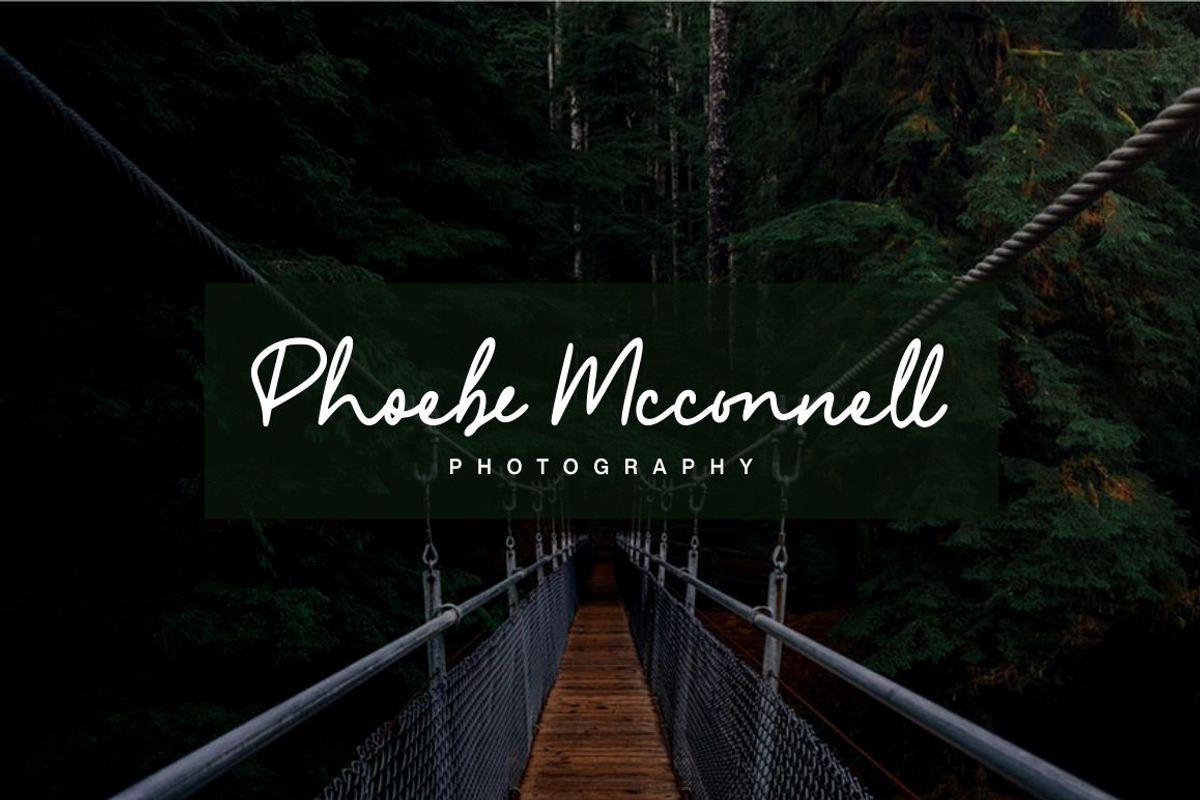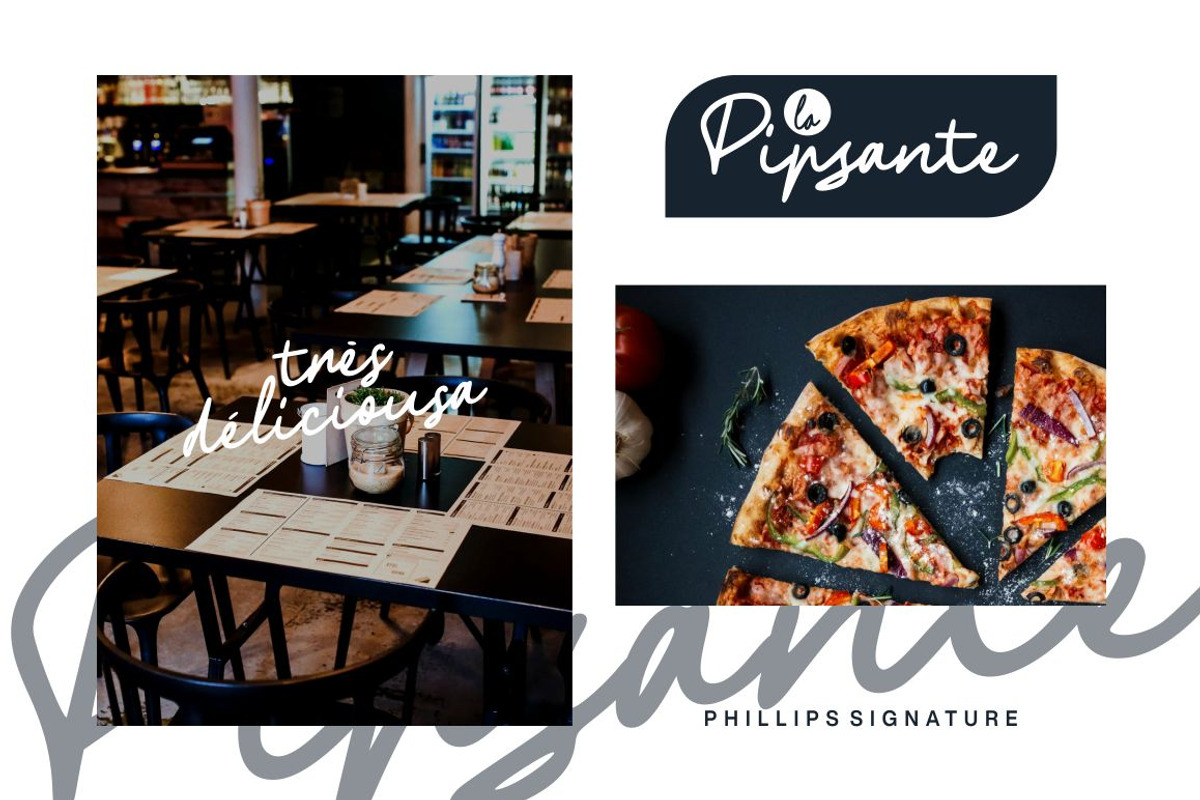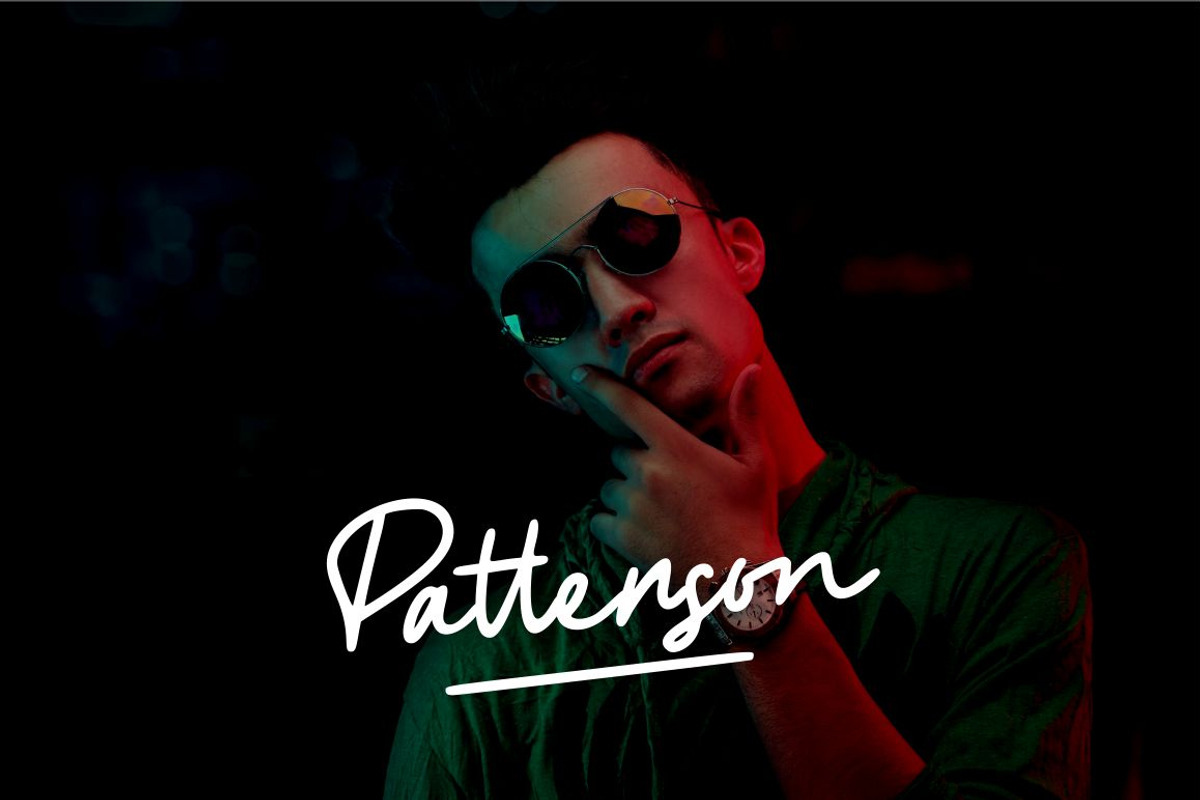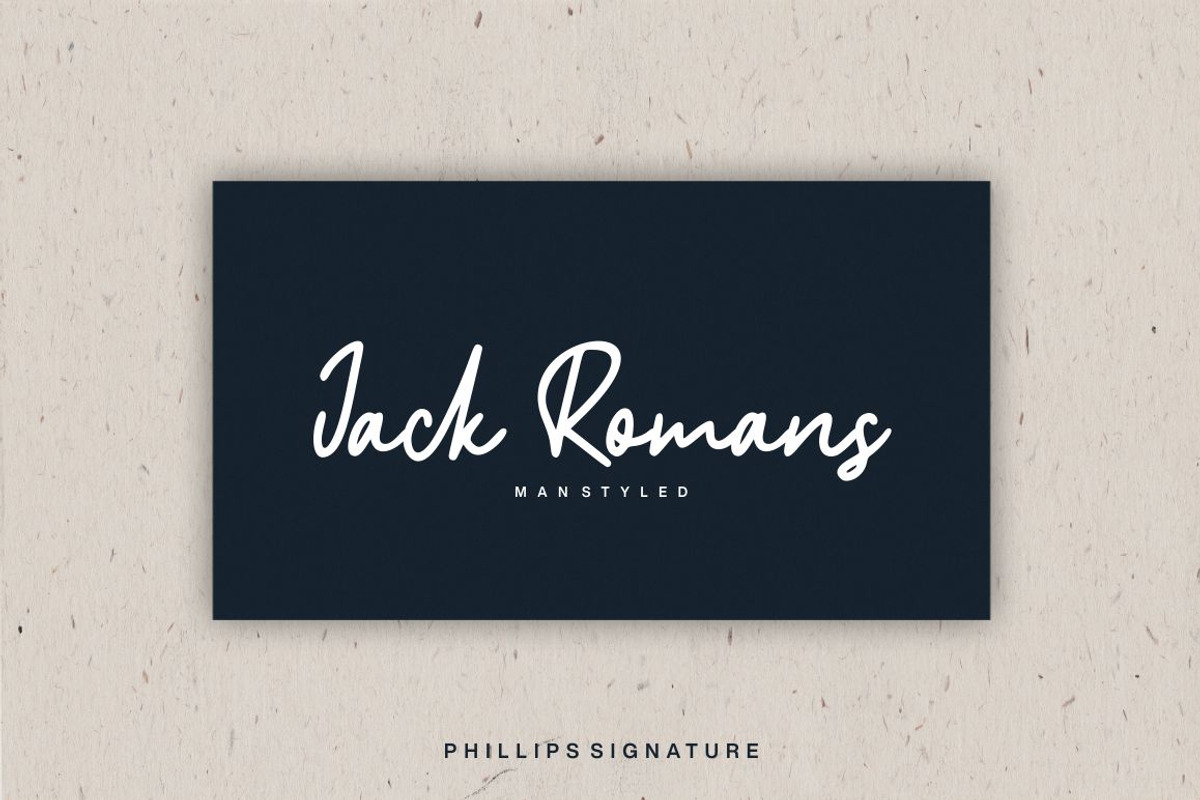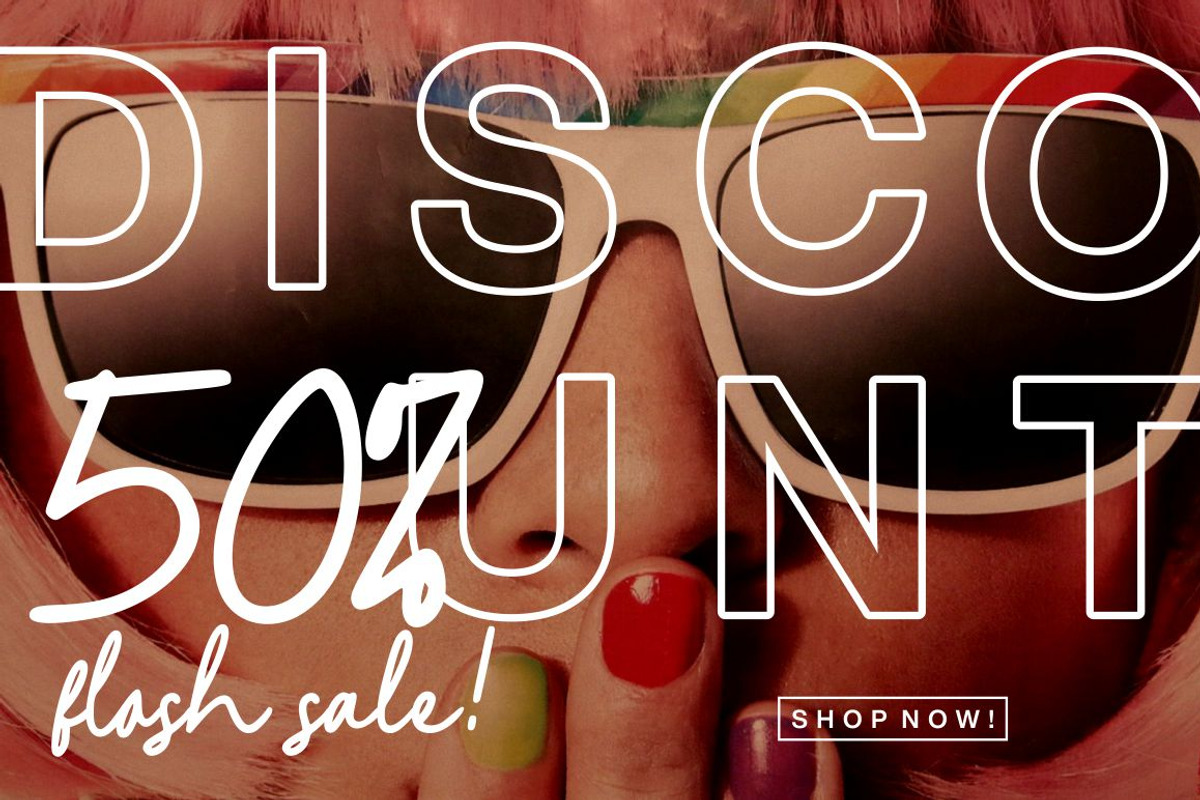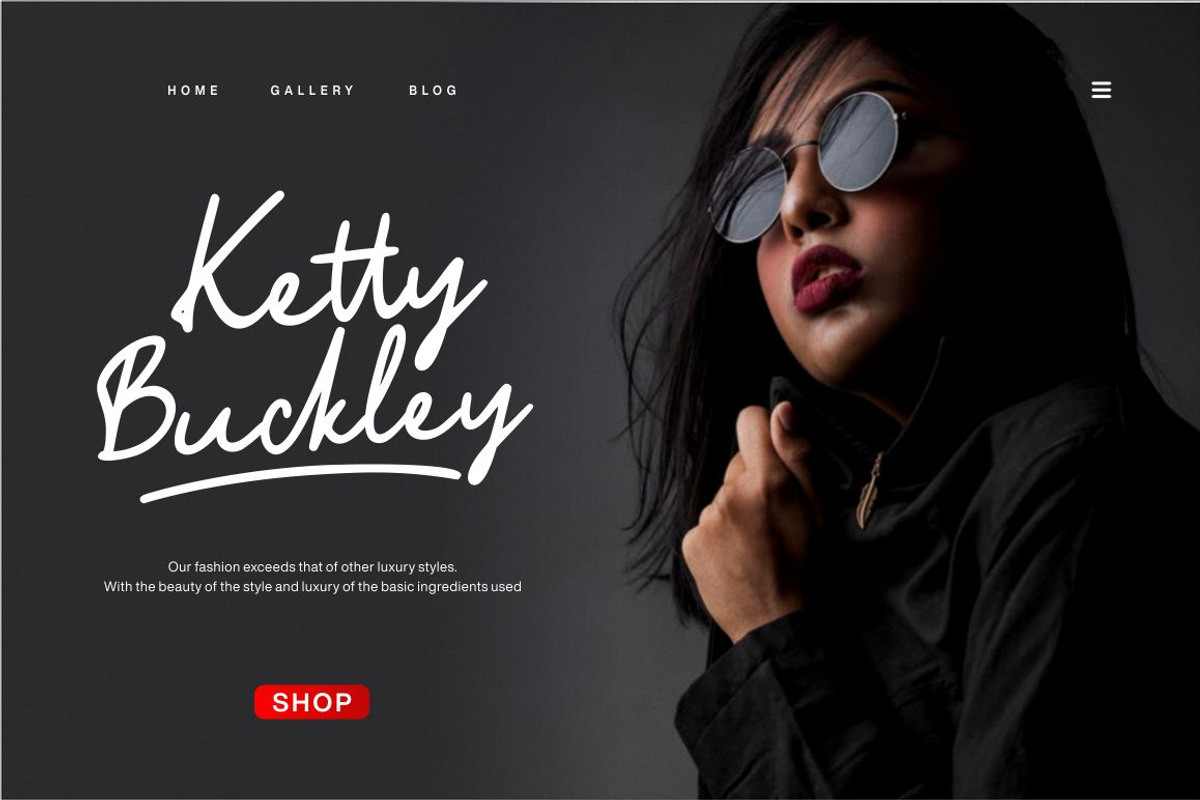
Phillips - Signature Font
Phillips born from handwritting style fonts. Versatile for design poster, logo, branding, label, quote, headline profil, banner, t-shirt design, packaging, magazine, brochure, and many more your amazing work with this fonts.